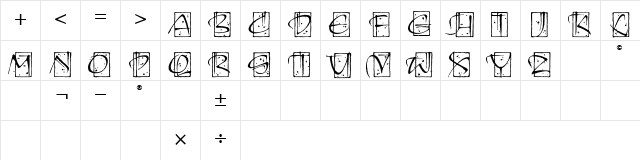
KendoInitialsITC TT Regular
Design Context for KendoInitialsITC TT Typeface
KendoInitialsITC TT is a composed and adaptable typeface that performs quietly and consistently across a wide range of design contexts.